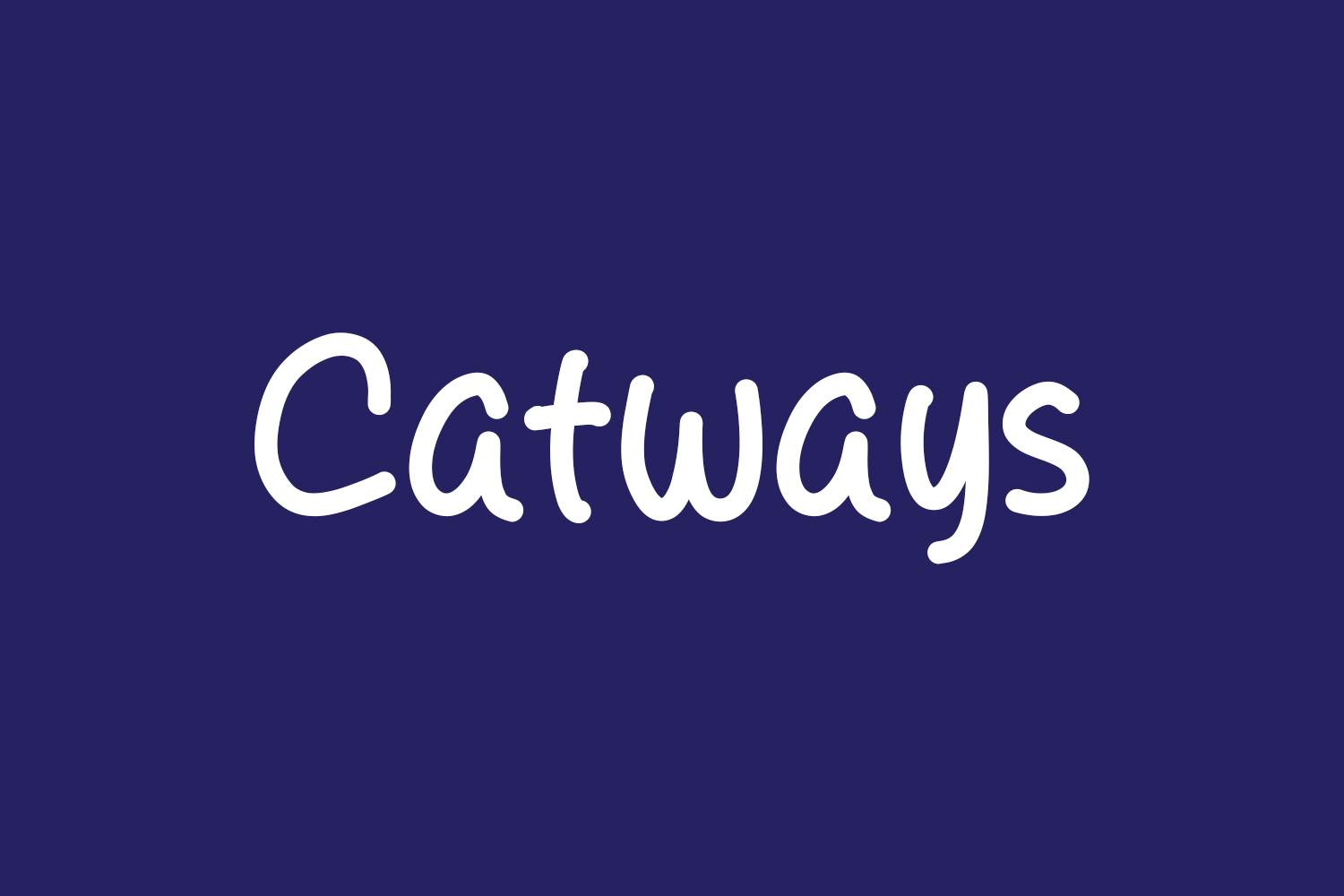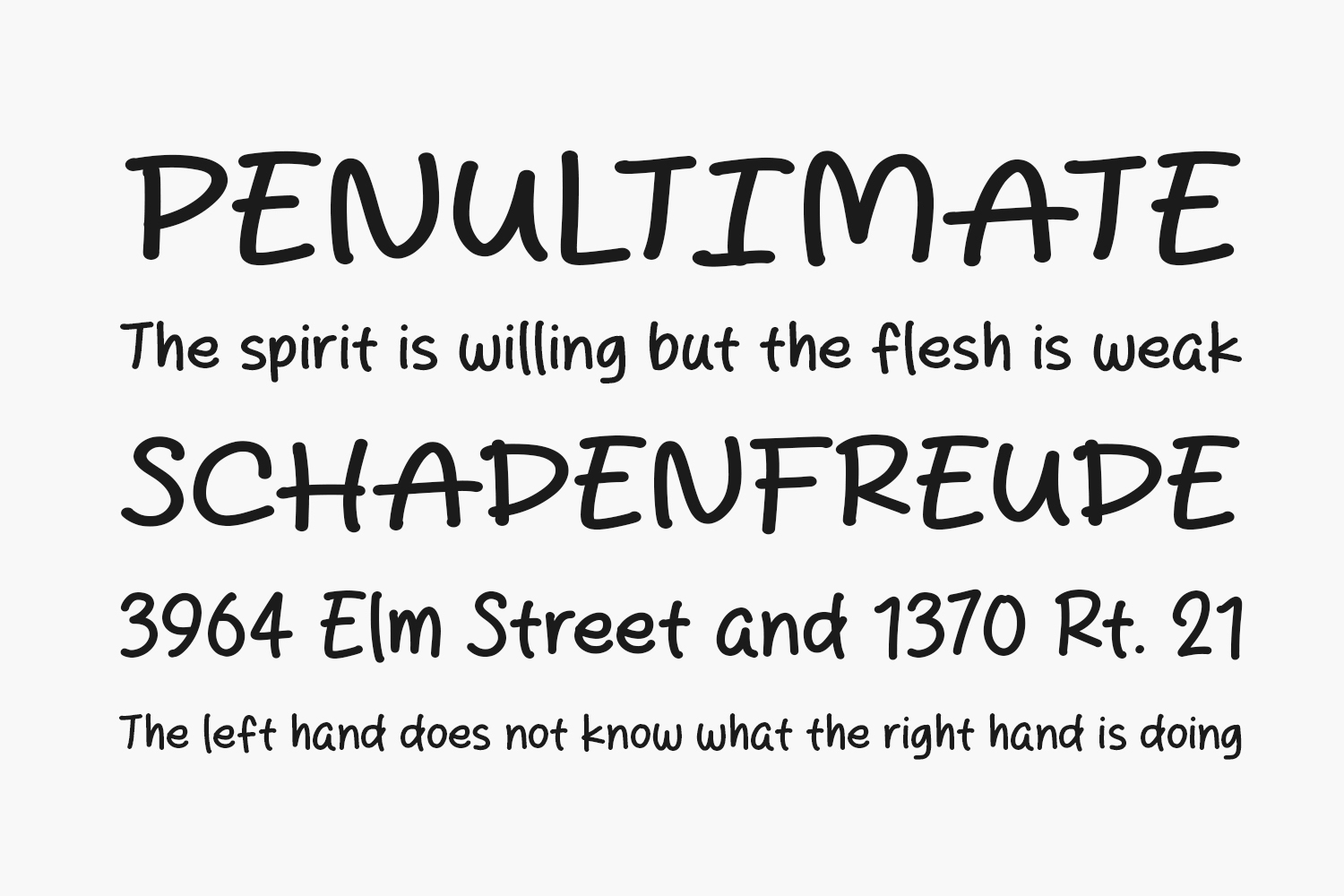
Catways Free Font is a contemporary and stylish script font ideal for posters, logos, magazines, book covers, banners, and beyond! Acquire this exceptional font to infuse your designs with a touch of sophistication. Its versatility seamlessly complements a wide array of projects, making it a must-have for your creative endeavors. Watch as Heyhoo transforms your ideas and sets them apart with its distinctive flair. Download the font for free if you need it for personal or commercial use.